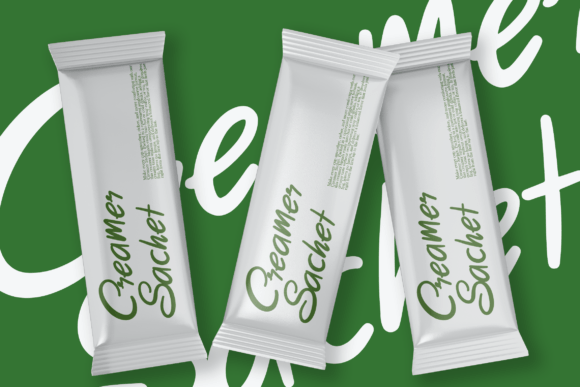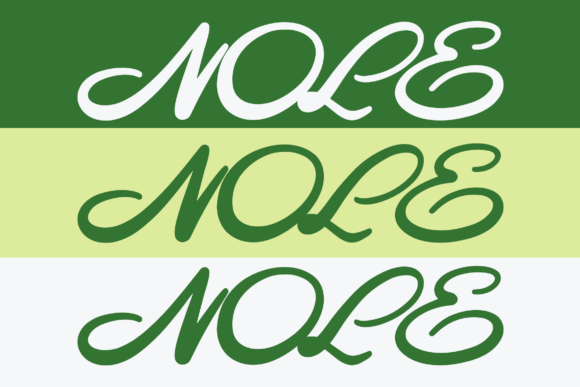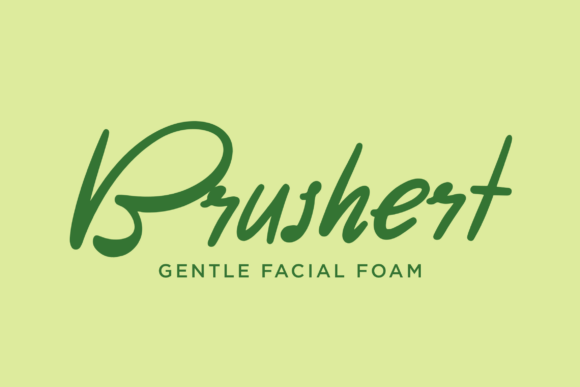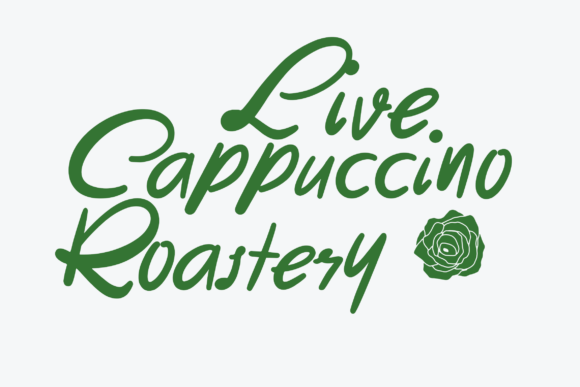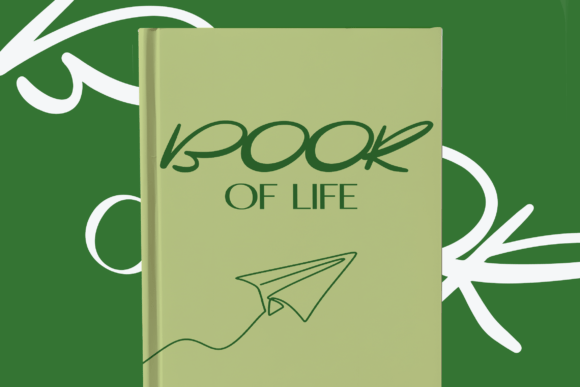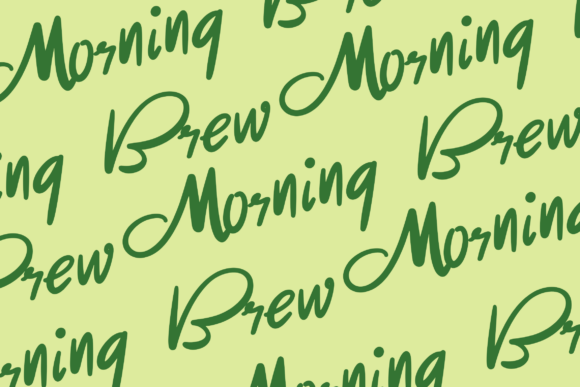
Introduction to Rushmark Font
Have you ever been stuck on a creative project, struggling to find the perfect font to capture the essence of your brand or design? You know, that moment when everything feels stagnant and you just need a spark to ignite your imagination? That’s exactly where the Rushmark Font comes in – a bold, groovy brush handwriting font that’s about to revolutionize your design game.
With its smooth yet expressive strokes, the Rushmark Font carries a playful 70s vibe that’s both readable and balanced. Its natural flow makes headlines feel energetic without looking chaotic, making it a perfect addition to any design resource. Whether you’re working on branding, posters, packaging, or social media graphics, the Rushmark Font is sure to bring a touch of warmth and personality to your layouts.
Rushmark Font
- High-quality, elegant design perfect for creative projects and designs
- Includes 100+ unique glyphs and characters for creative expression
- Perfect for use as a design resource in logos, branding, and typography projects
Honest Review: Rushmark Font
- What works well: ✨ The Rushmark Font has a unique, modern aesthetic that’s perfect for contemporary design projects. The font is highly customizable, making it an excellent choice for designers who want to add a personal touch to their work.
However, I did encounter a few limitations during my testing:
- ⚠️ The font is not suitable for body text, as it can be difficult to read in smaller sizes. It’s best used for headlines and titles where a bold, eye-catching font is desired.
- ⚠️ The font is not as versatile as some other popular design resources, so it may not be the best choice for designers working on projects with a wide range of styles and themes.
Overall, I’m impressed with the Rushmark Font and would recommend it to designers looking for a unique, high-quality font for their creative projects. Just be sure to use it judiciously and in the right context.
Rushmark Font
The Rushmark Font is a versatile design resource that can elevate any creative project. With its high-quality aesthetic and transparent background, it’s perfect for adding a touch of sophistication to your work.
The Rushmark Font is ideal for use in a variety of creative projects, including:
- Social media graphics and advertisements
What is the recommended font size for optimal readability with the Rushmark Font?
The recommended font size for optimal readability with the Rushmark Font is between 12-24 points, depending on the specific design context and intended audience. However, feel free to experiment with different font sizes to find the perfect balance for your creative project.